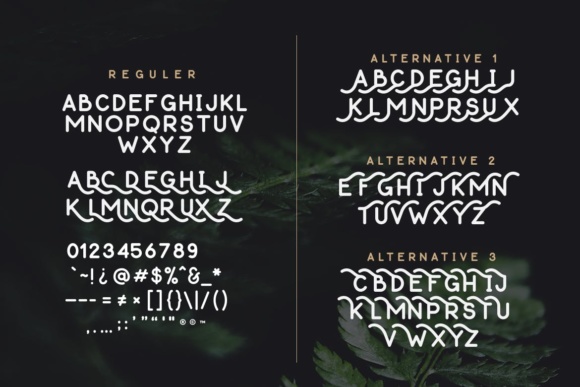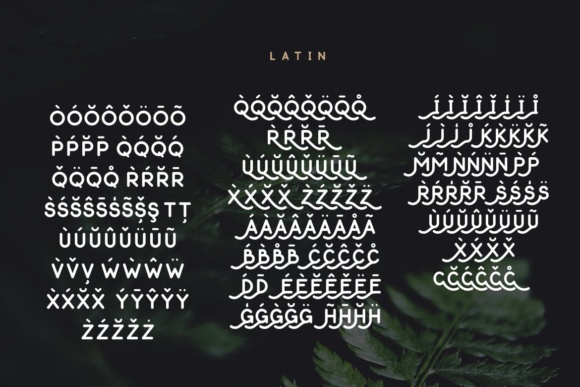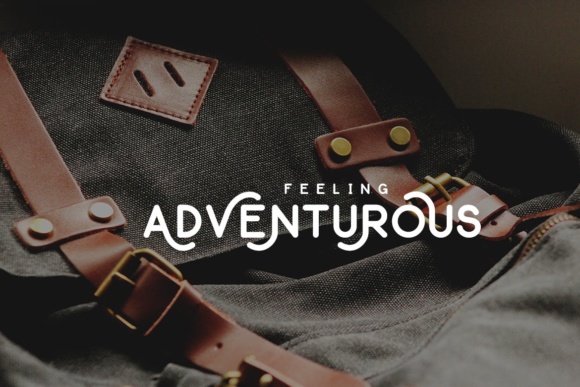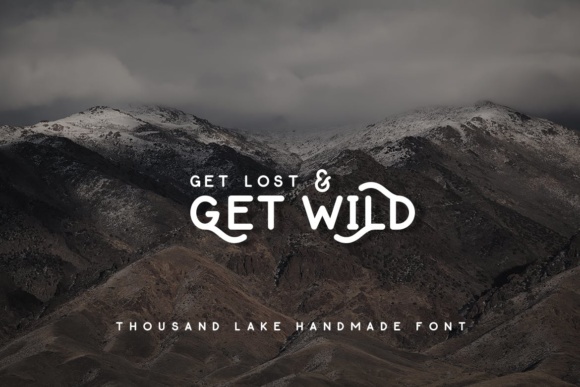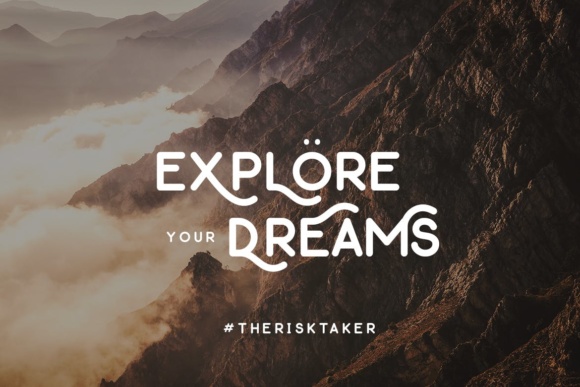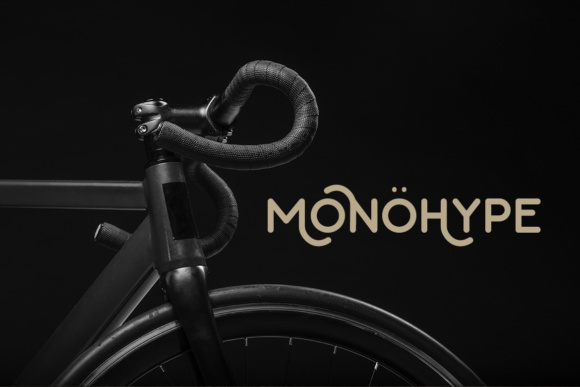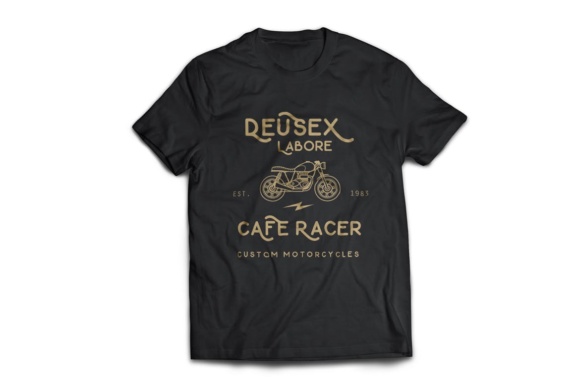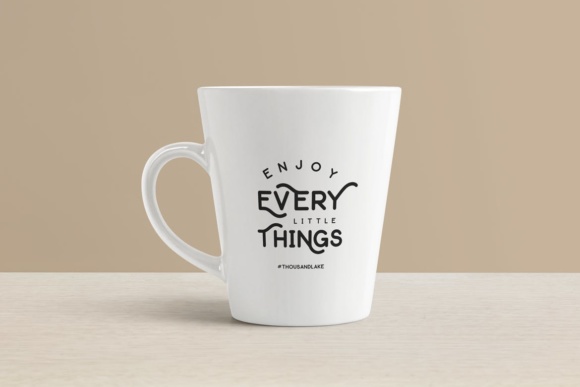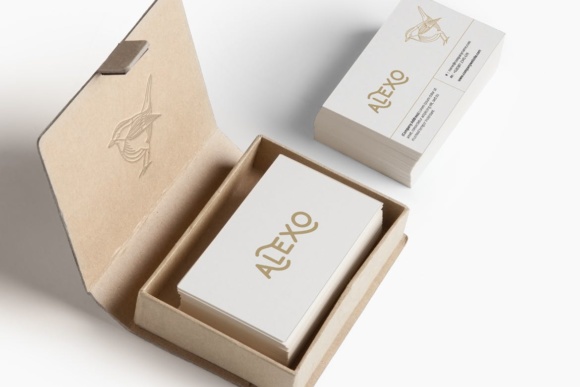
Thousand Lake Font
About Thousand Lake Font
Create a extraordinary design with one of the best handwritten scripts. It can be used for various purposes such as: logos, headers, titles and much more!